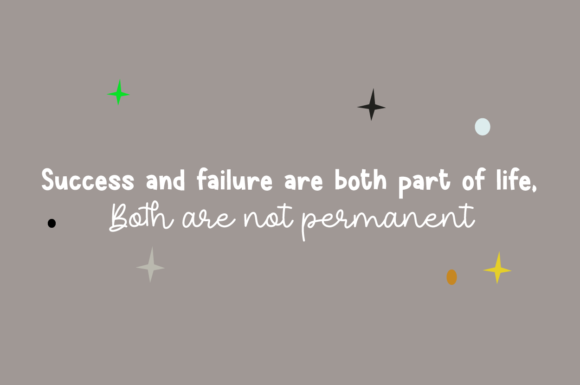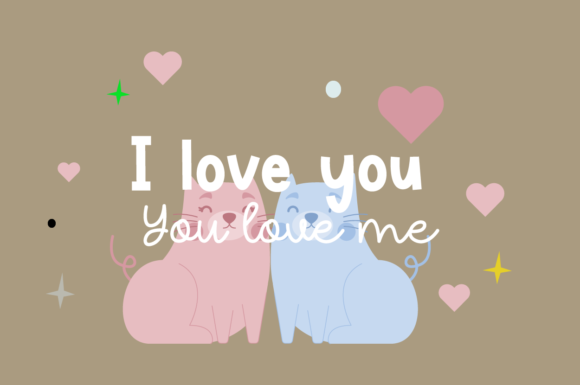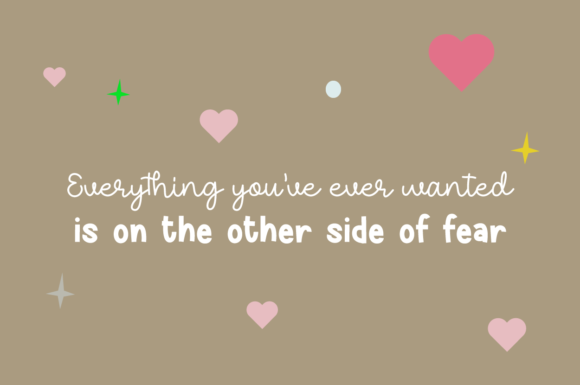
Fried Bananas Font
Fried Bananas is a cute and friendly duo font (script and sans serif). This font is PUA encoded which means you can access all glyphs and swashes with ease!Add it confidently to your favorite creations and let yourself be amazed by the outcome generated.